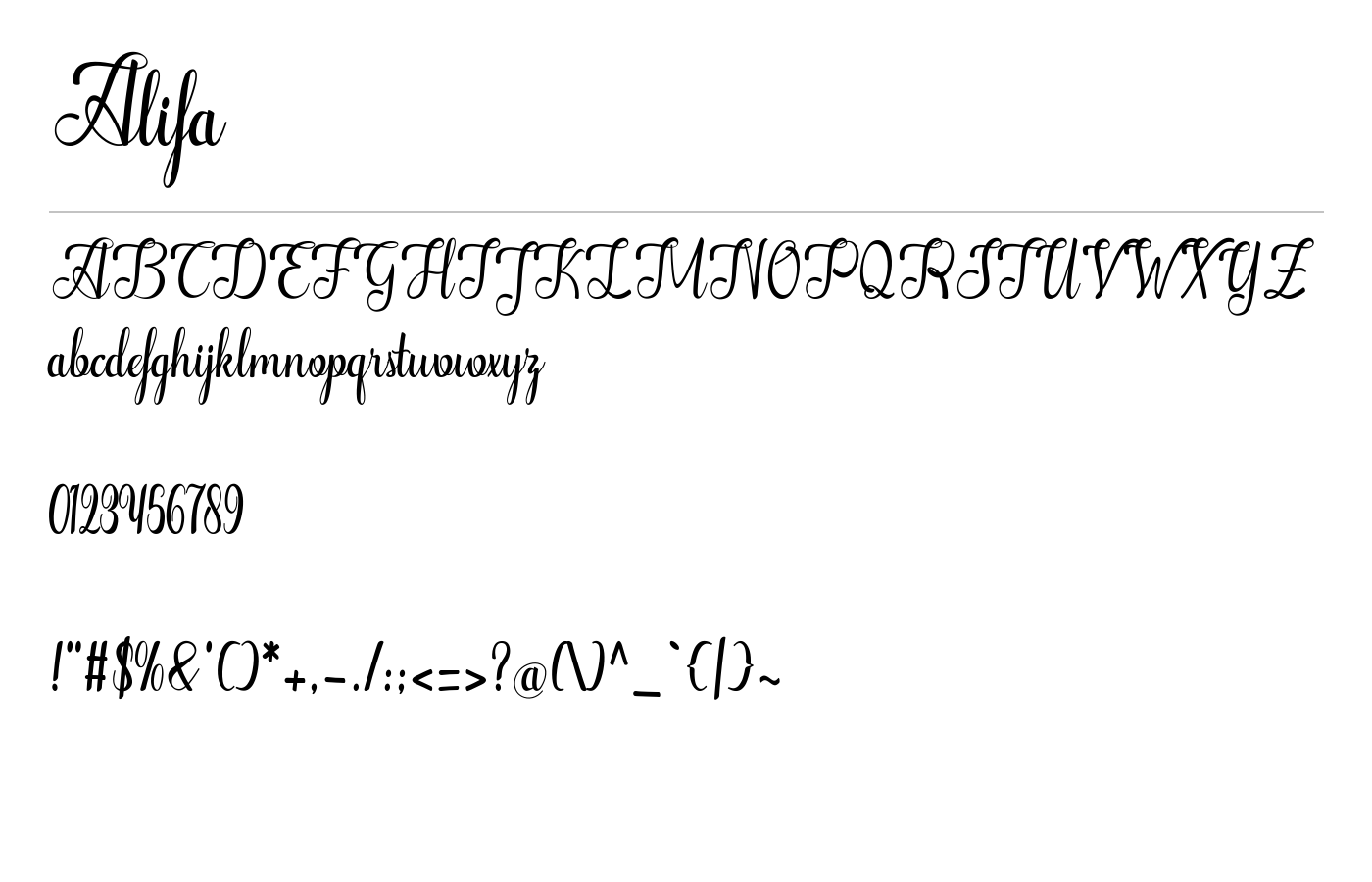
Alifa is an elegant script font with a flowing, calligraphic style that combines graceful swashes and slender, slightly condensed letterforms. Its high contrast between thick and thin strokes, along with distinct, decorative uppercase characters, lends a refined and luxurious feel, making it perfect for invitations, branding, and headlines where a touch of sophistication is desired. This font shines in designs that require a blend of tradition and stylish flair, especially in fashion, beauty, or formal settings.
Alifa Font
About Alifa Font